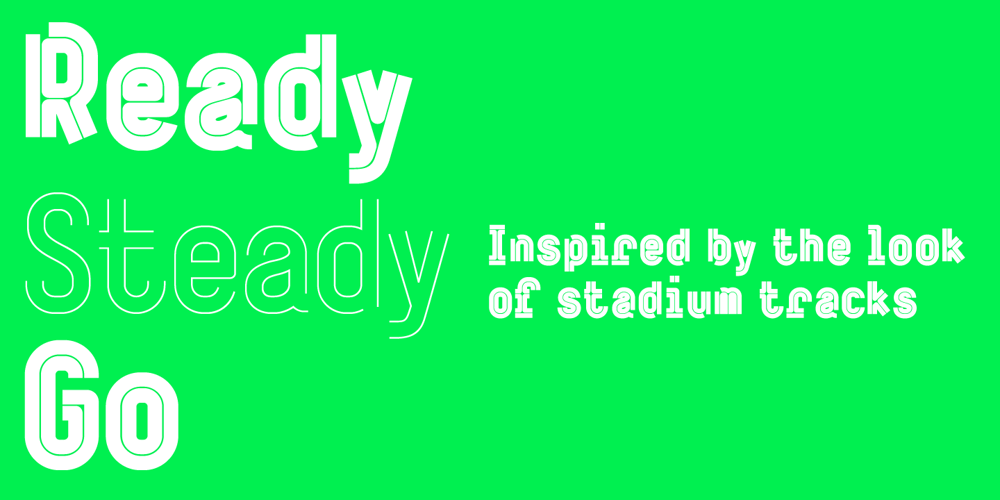
ReadySteadyGo
ReadySteadyGo font
ReadySteadyGo Font Family was designed by Lars Harmsen, Boris Kahl, Julia Rausch and published by Volcano Type. ReadySteadyGo contains 2 styles and family package options. ReadySteadyGo is a display font that refers to the look of stadium tracks. The font was actually created for Sports Bible, a book about sportswear, published by Sportswear International.